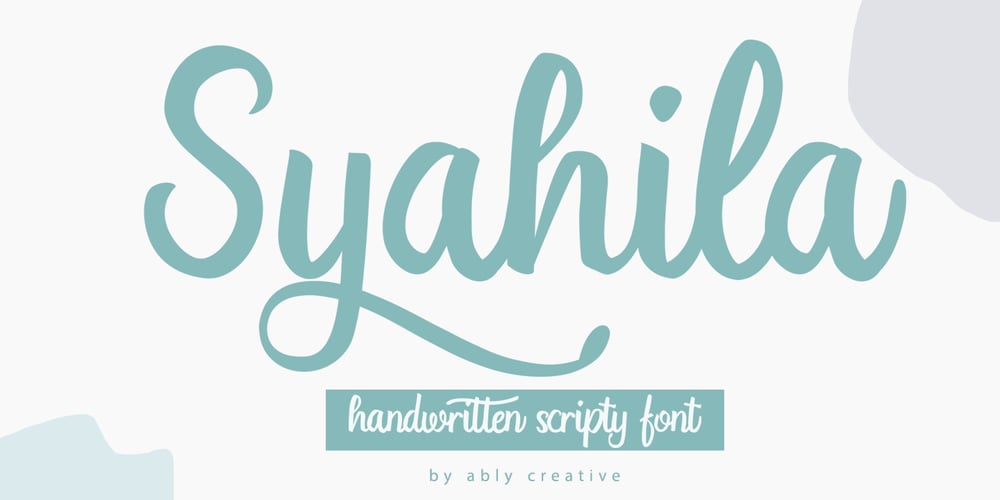
Syahila Font Family was designed by Amrullah Medan, Amrullah, Dedi Purwanto and published by Ably Creative. Syahila contains 1 styles and family package options. Syahila is consisting of a perfect font, come with regular.This font was created with contextual alternates opentype features to create more beauty. It’s simple and friendly style makes this design incredibly versatile, fitting a wide variety of creative ideas.Syahila is perfect for branding projects, social media posts, advertisements, product packaging, product designs, label, stationery and anything that you want. It is suitable for logo, packaging, apparel, social media, and more.whats you get:Works on PC & MacSimple installationsSupports multilingual